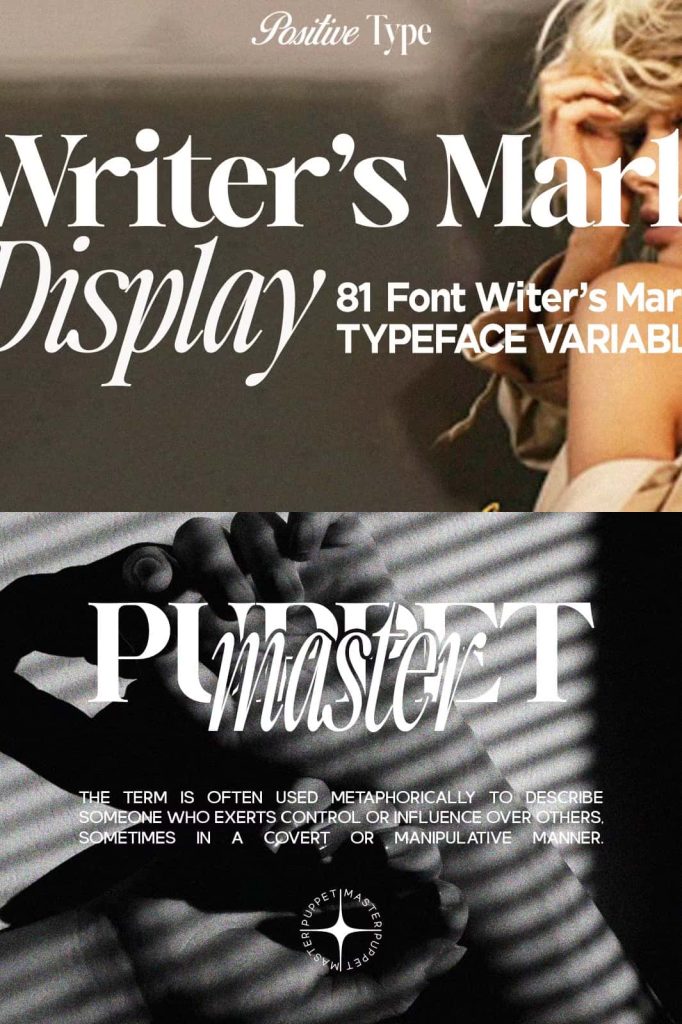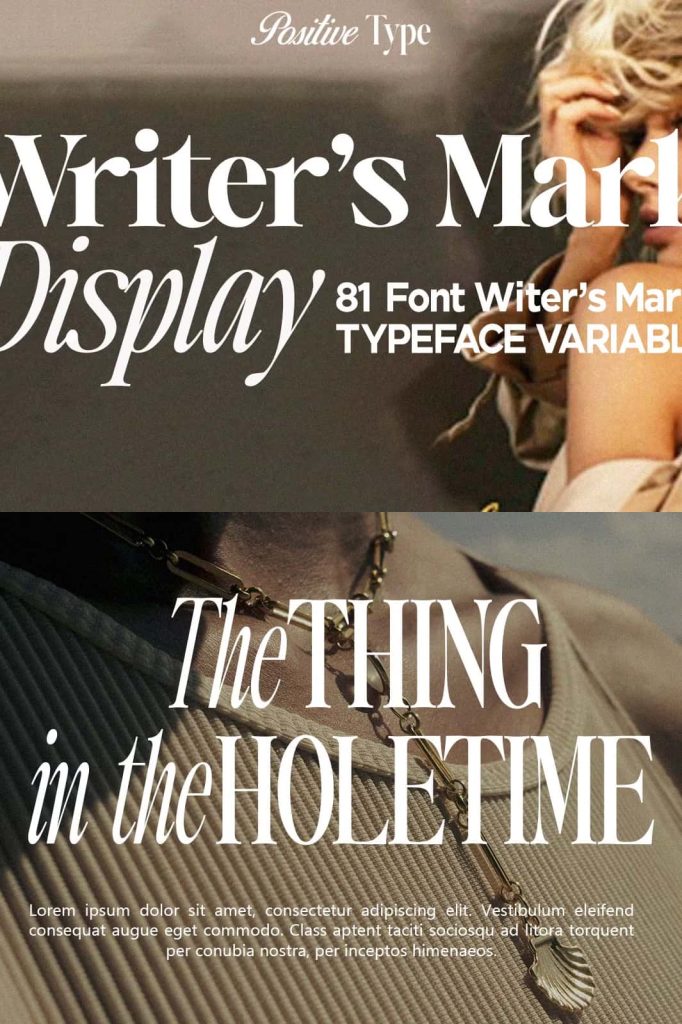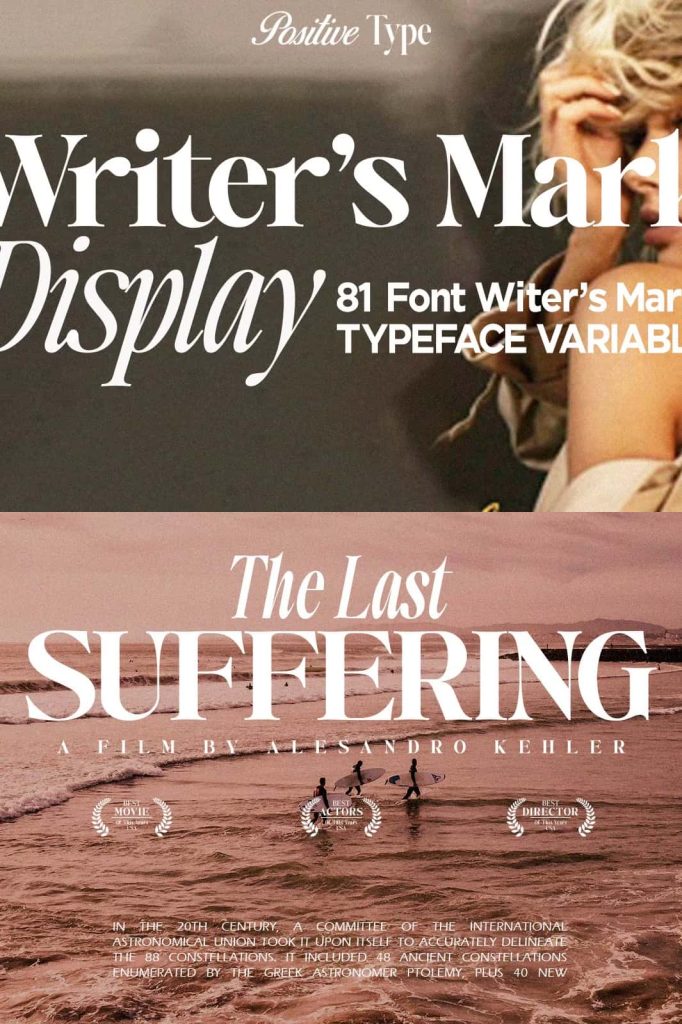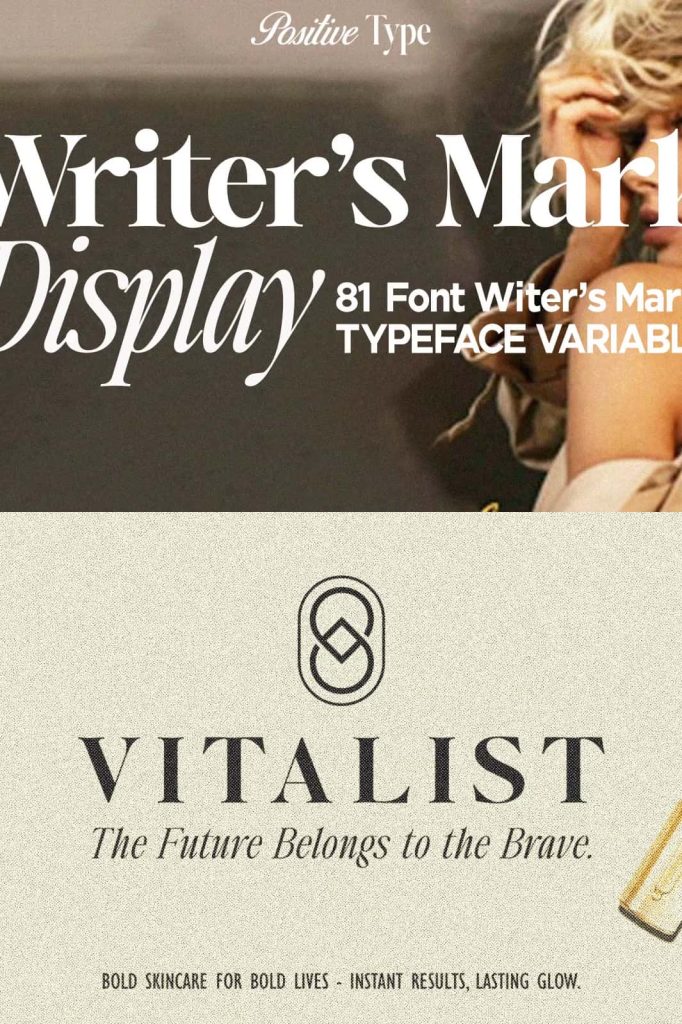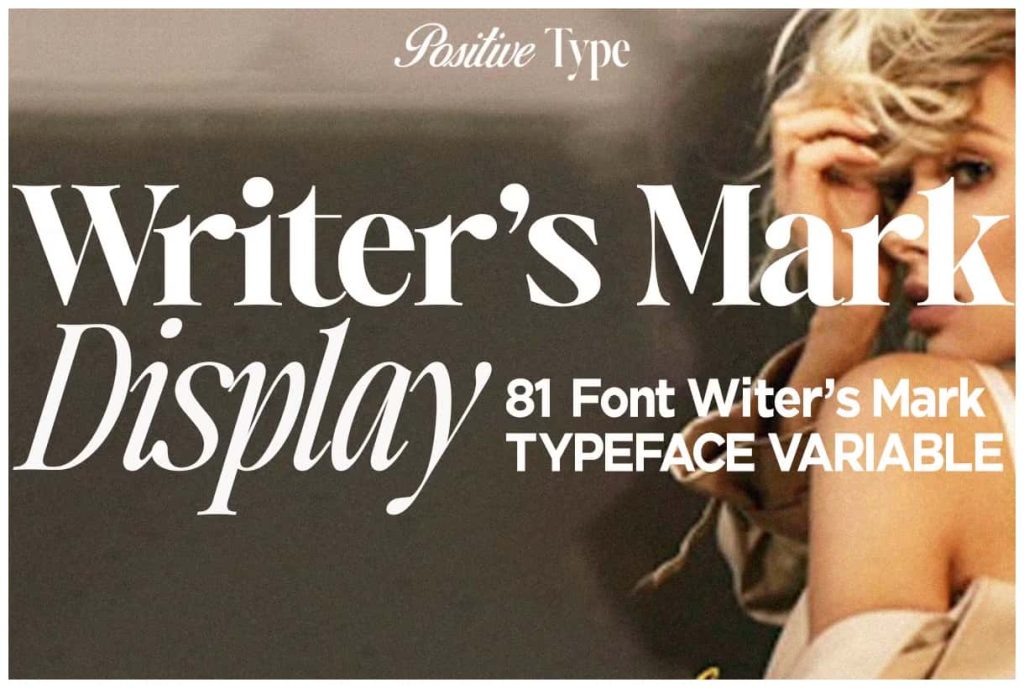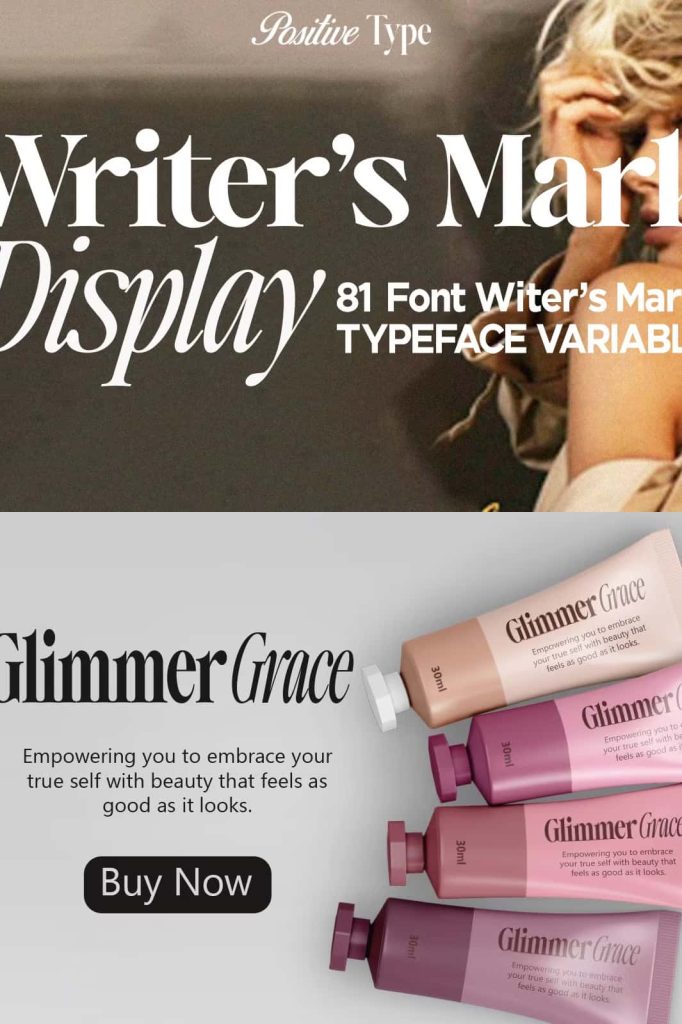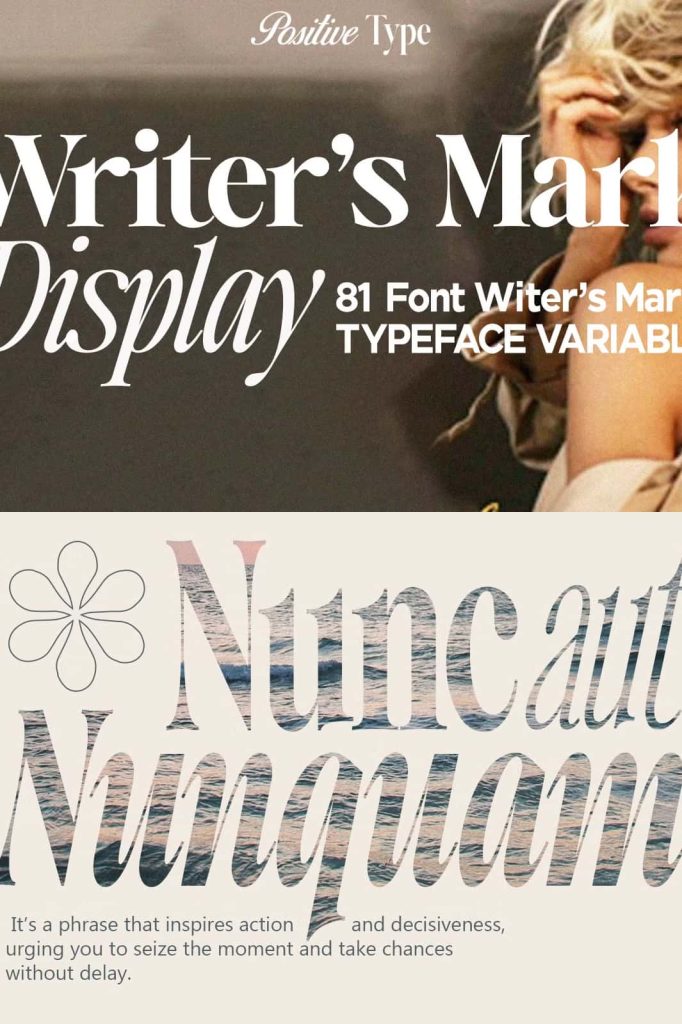
Positive TypeFoundry presents Writer’s Mark Display | Font Family – a modern, high-contrast transitional serif typeface that exudes a captivating blend of contemporary sophistication and timeless elegance.